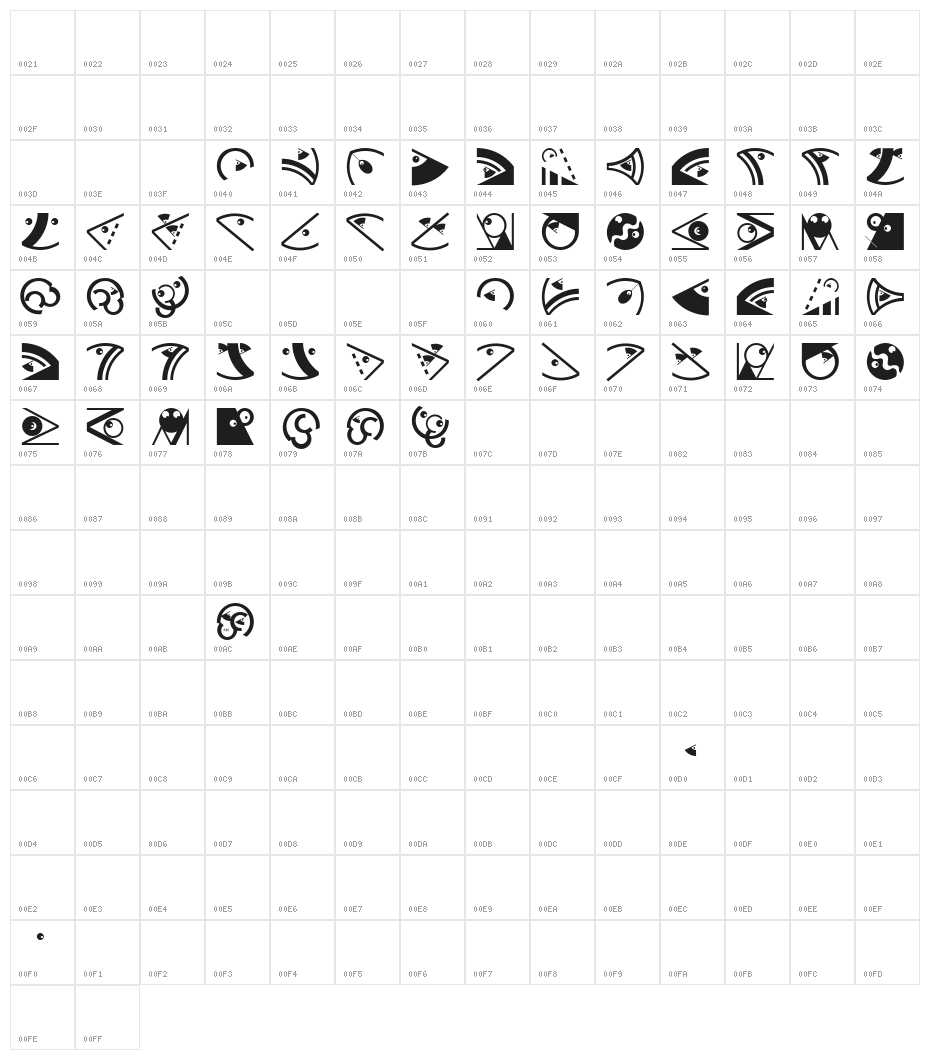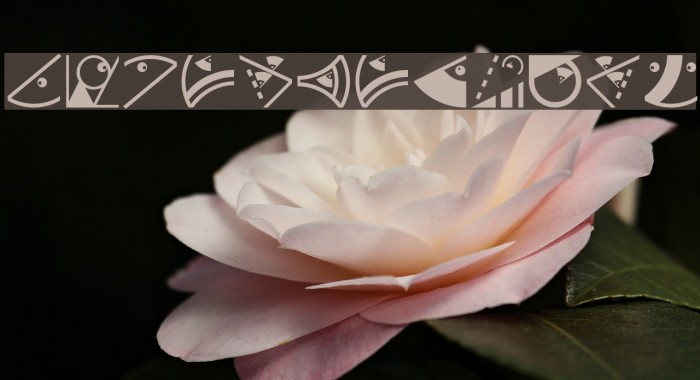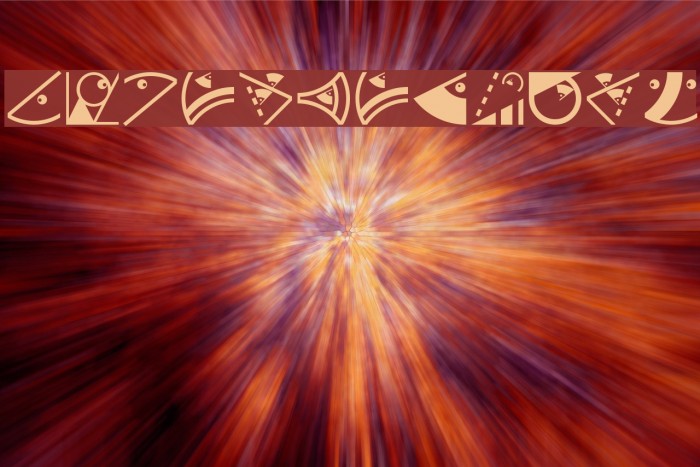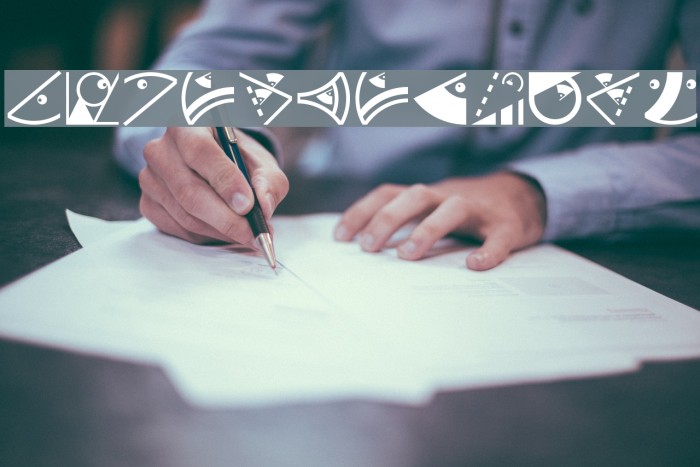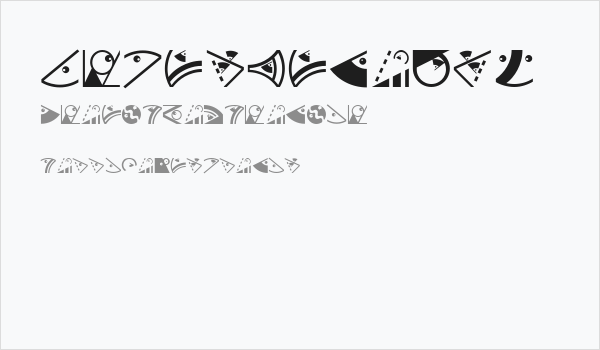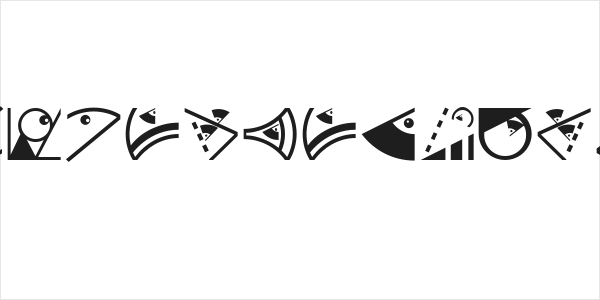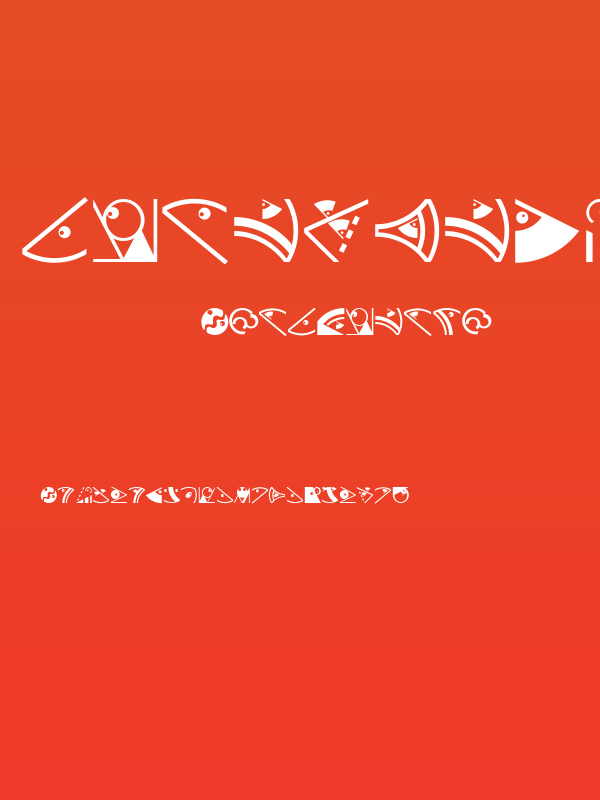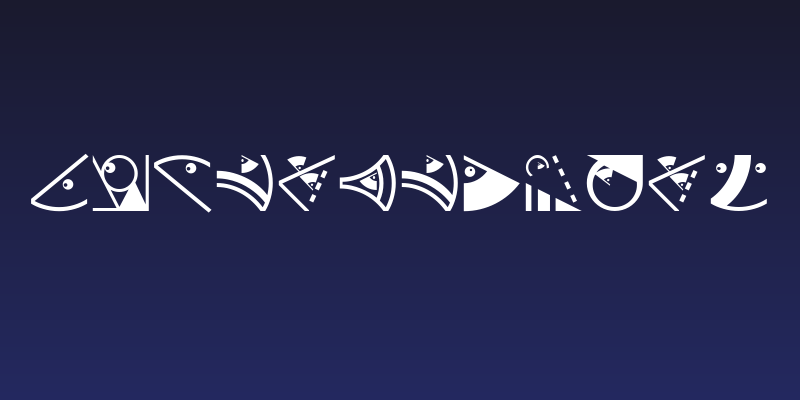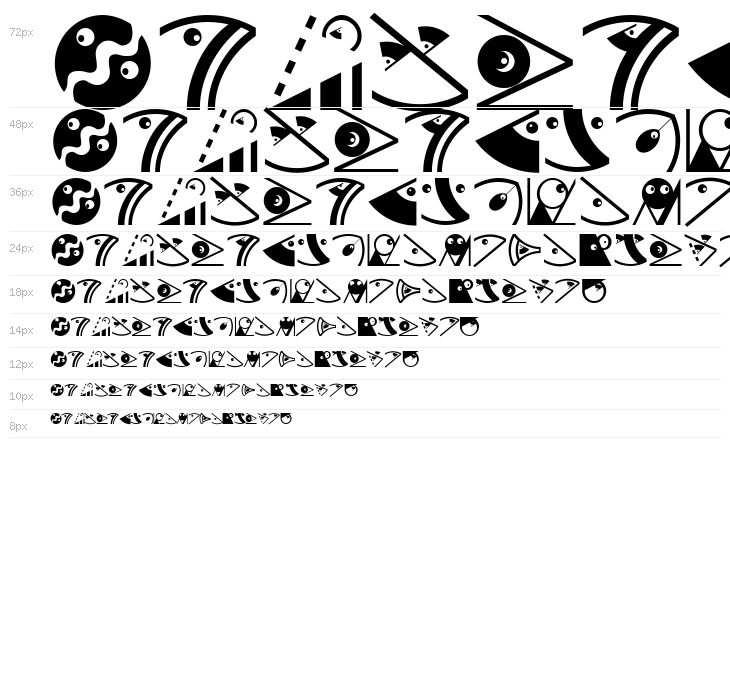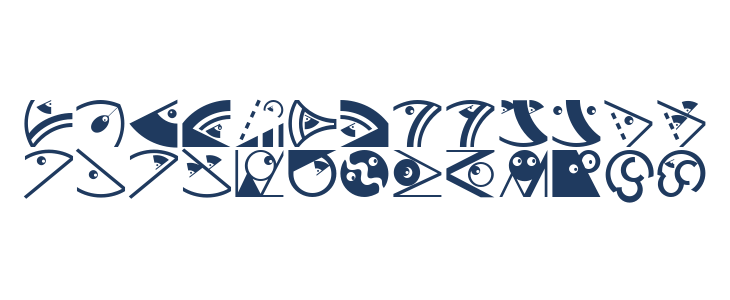
OrnamFacesMK Font
OrnamFacesMK Description
This font is a highly decorative and artistic typeface, featuring abstract and whimsical shapes that resemble faces or masks. Each character is uniquely designed with intricate patterns and bold geometric elements, creating a playful and eye-catching appearance. The font is characterized by its strong visual impact, with each letterform incorporating a mix of curves, angles, and contrasting black and white spaces. This design approach makes it suitable for creative and unconventional projects where a distinctive and artistic touch is desired.
| Use Case | Logos, Posters, Artistic Projects |
| Proposed Projects | Ideal for artistic posters, creative branding, unique invitations, and any project requiring a standout decorative element. |